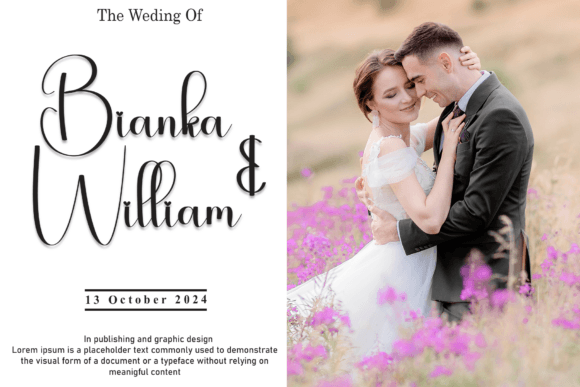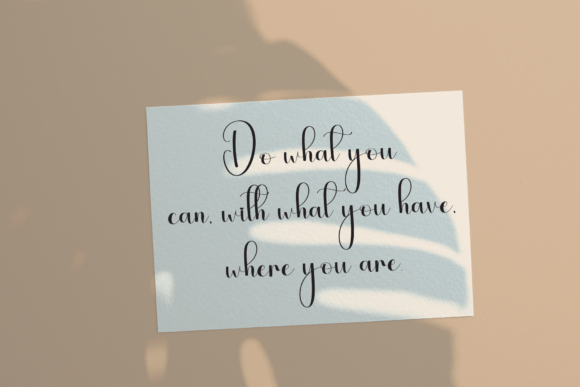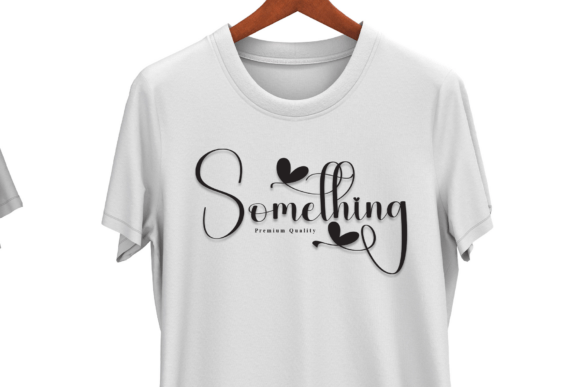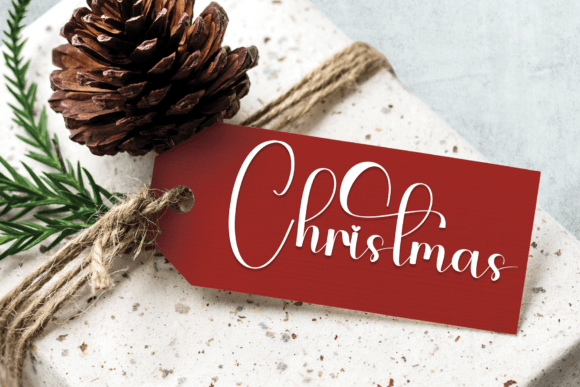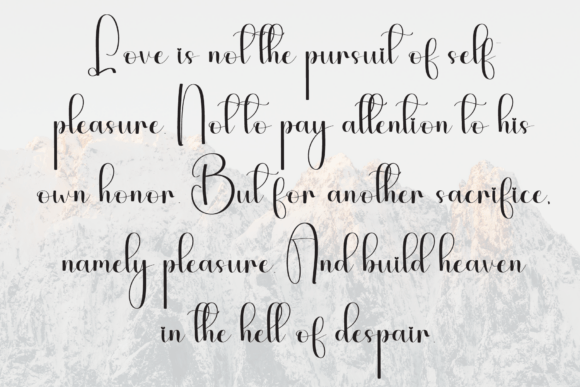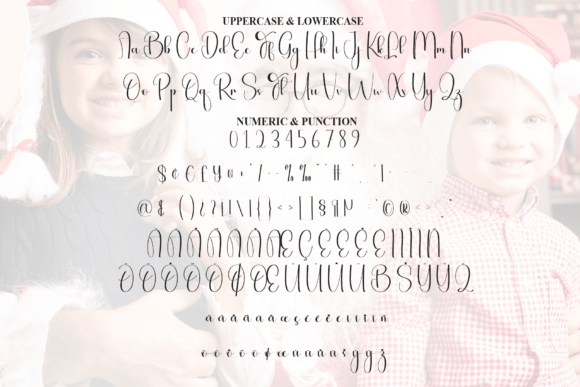
Introduction to Santa Family Font
Have you ever found yourself in a creative rut, struggling to convey the perfect tone in your designs? Maybe you’re working on a wedding invitation and want to infuse it with a sense of joy and playfulness, or perhaps you’re crafting a heartfelt card to express your love and appreciation. Whatever the project, finding the right font can make all the difference.
That’s where the enchanting Santa Family Font comes in – a charmingly whimsical handwritten display font that will transport your designs to a world of delightful fun. With its elegant simplicity and sophistication, this font is the perfect design resource for any creative project requiring a touch of magic. Whether you’re looking for a free download or a high-quality font to elevate your designs, the Santa Family Font is an invaluable asset for any designer seeking to add a personal and engaging touch to their work.
Key Features of Santa Family Font
- High-quality design resource suitable for various creative projects, including holiday-themed designs and greeting cards.
- Features a unique and festive design style, perfect for adding a touch of holiday cheer to any creative project.
- Includes a range of font styles and weights, allowing users to customize their design to suit their specific needs.
Honest Review: Santa Family Font
I recently stumbled upon the Santa Family Font while searching for a unique design resource for my holiday-themed creative project. I was thrilled to find a free download that could add a touch of festivity to my design.
What works well about the Santa Family Font is its versatility. It comes with multiple weights, including bold and light styles, which makes it perfect for creating visually appealing graphics. The font also features a transparent background, allowing you to easily integrate it with other design elements. ✨
- The font’s high quality is evident in its crisp lines and clear typography.
- The font is suitable for various design projects, including logos, posters, and social media graphics.
However, I noticed a few limitations to the Santa Family Font. The font doesn’t have a complete set of characters, which might be a concern for designers who need to create extensive content. Additionally, the font’s design may not be suitable for all types of projects, especially those that require a more minimalist or modern aesthetic. ⚠️
Overall, I’m impressed with the Santa Family Font’s potential and would recommend it to designers looking for a unique and festive design resource. While it may have some limitations, its free download and high quality make it an excellent addition to any design library.
Santa Family Font
Tips for Getting the Most Out of Santa Family Font
To get the most out of the Santa Family Font, use it in conjunction with other design elements to create a cohesive and festive look. Experiment with different font sizes and styles to add visual interest to your designs.
The Santa Family Font is perfect for creating holiday-themed designs, including greeting cards, gift tags, and social media graphics. Its high-quality design and transparent background make it an ideal resource for designers and non-designers alike.